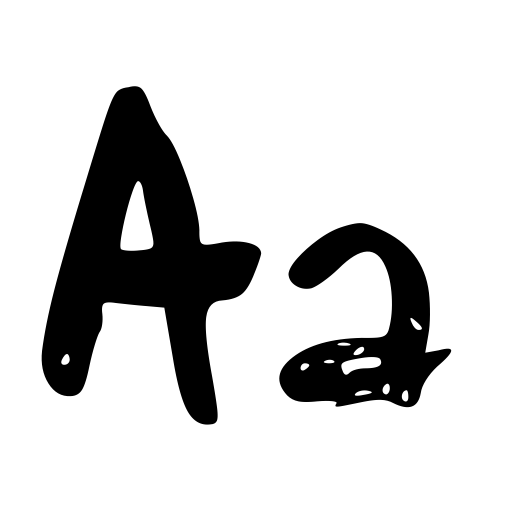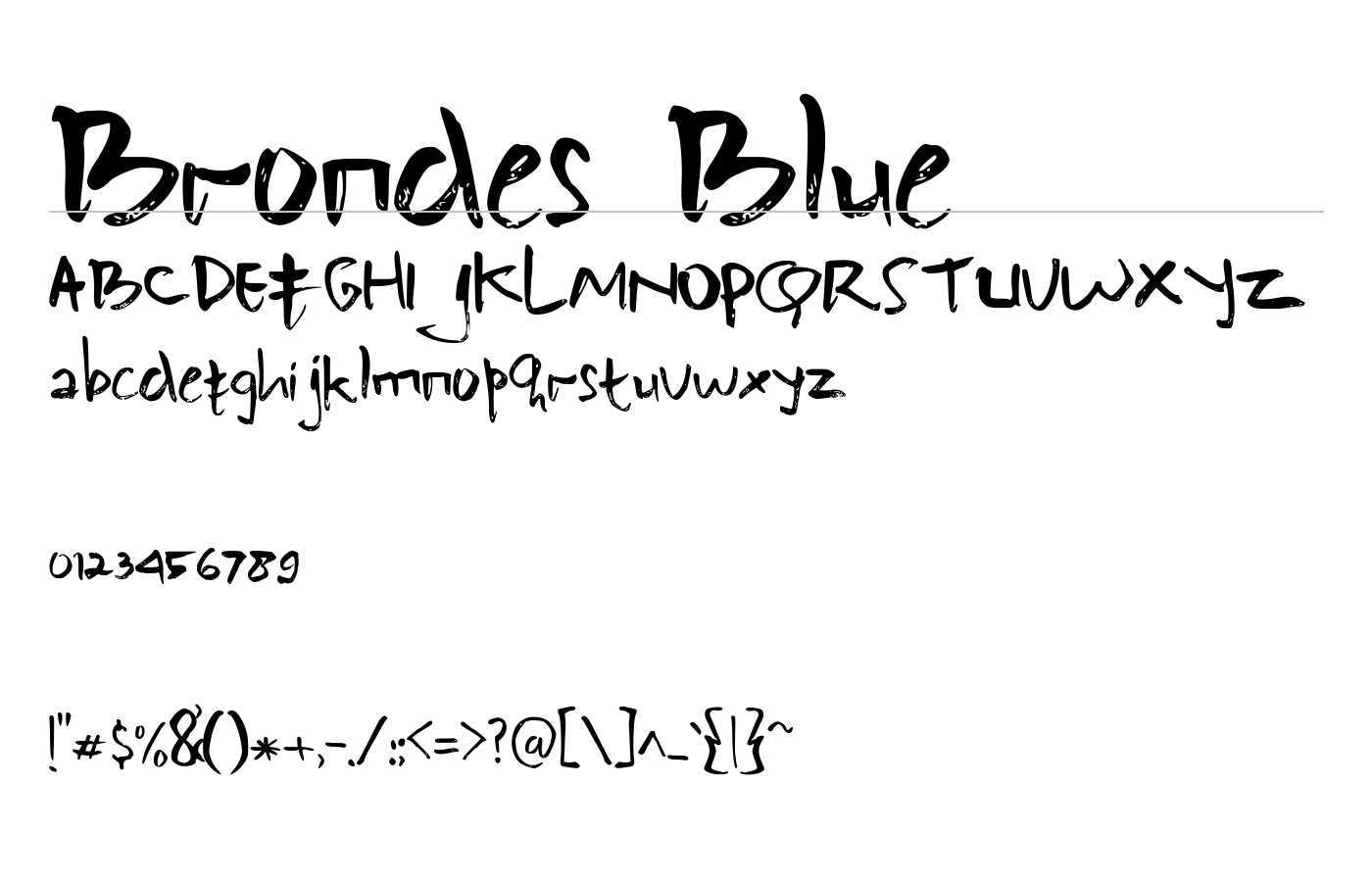
Brondes Blue is an expressive handwritten font with a lively, uneven stroke texture that gives it a casual, artistic feel. Its slightly rough edges and playful letterforms make it perfect for creative projects, adding personality and a personal touch to branding, posters, or social media designs. This font works well where a bold, informal, and dynamic style is desired to connect with audiences in a friendly and approachable way.
Brondes Blue Font
About Brondes Blue Font
| Font family | Brondes Blue Font |
| Designer | Ahmad Saiful Mutohhar+Rafantype Studio |